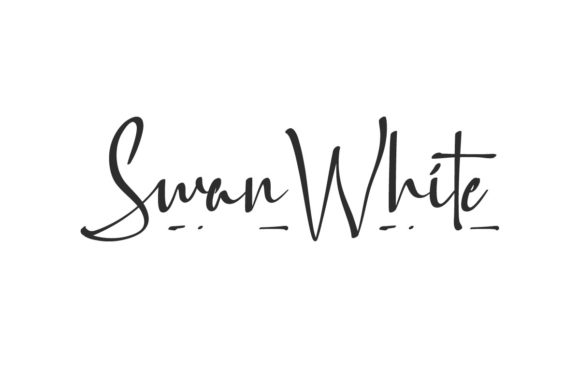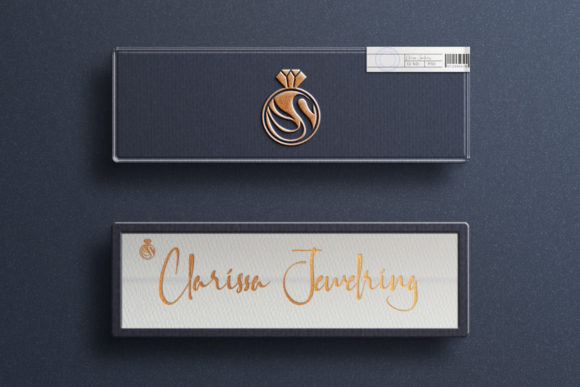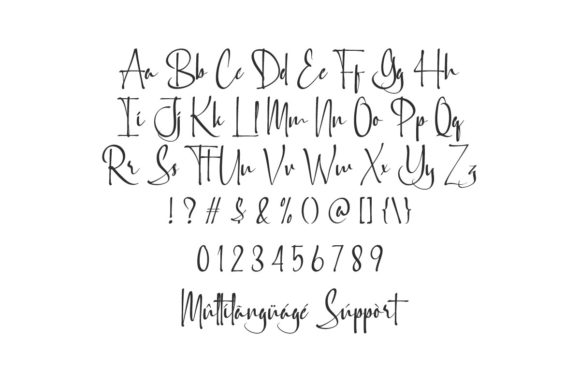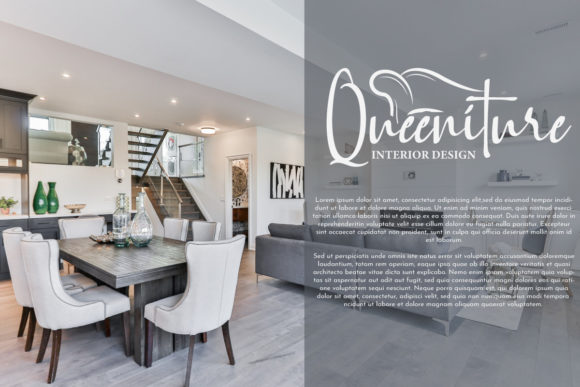
About Swan White Font
Swan White is an elegant script font with a contemporary atmosphere and impeccable form, inspired by timeless classic calligraphy. This font is PUA encoded which means you can access all of the glyphs and swashes with ease!Â